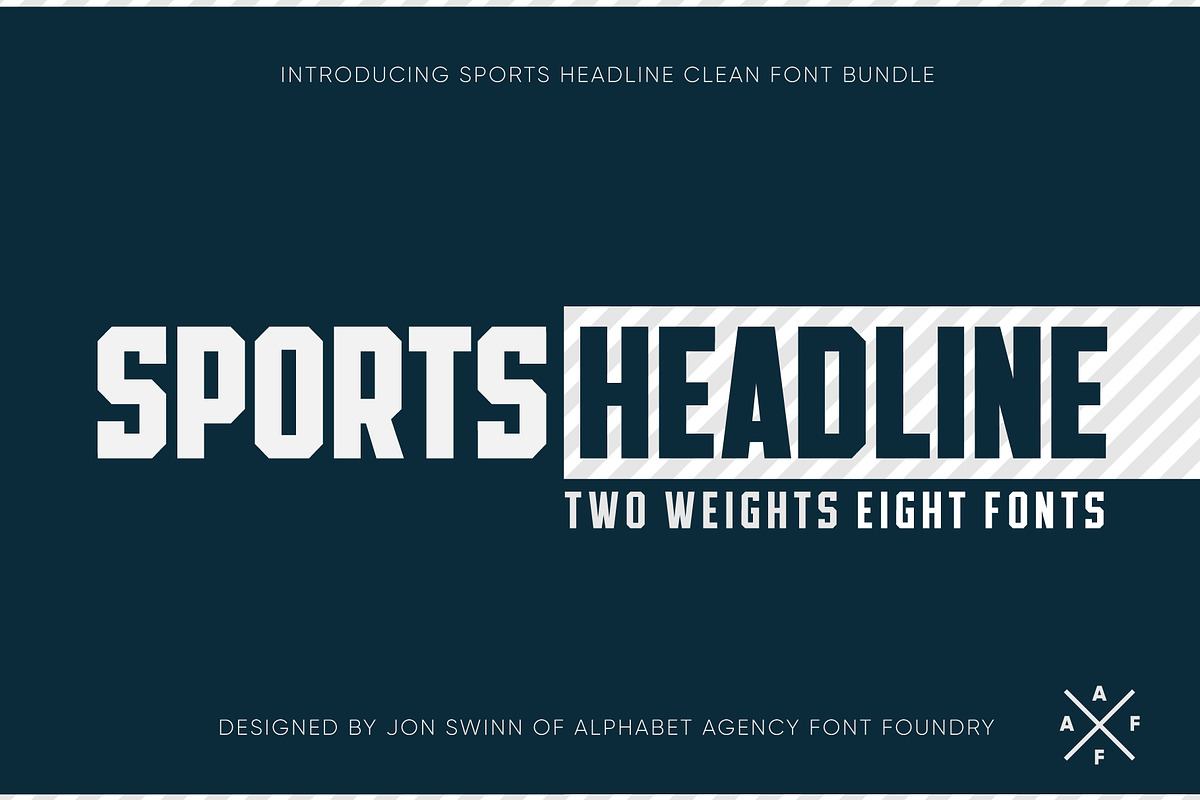
SPORTS HEADLINE (8 Fonts) Free Download is a dynamic font collection built to capture the intensity and energy of athletic design. With bold letterforms, sharp angles, and multiple style options, this font family is perfect for sports branding, event posters, team merchandise, scoreboards, and action-packed social media graphics.
Whether you're designing for football, basketball, racing, or fitness-related content, SPORTS HEADLINE delivers impact and readability. The set includes 8 powerful variations to give your typography flexibility without sacrificing strength or style.